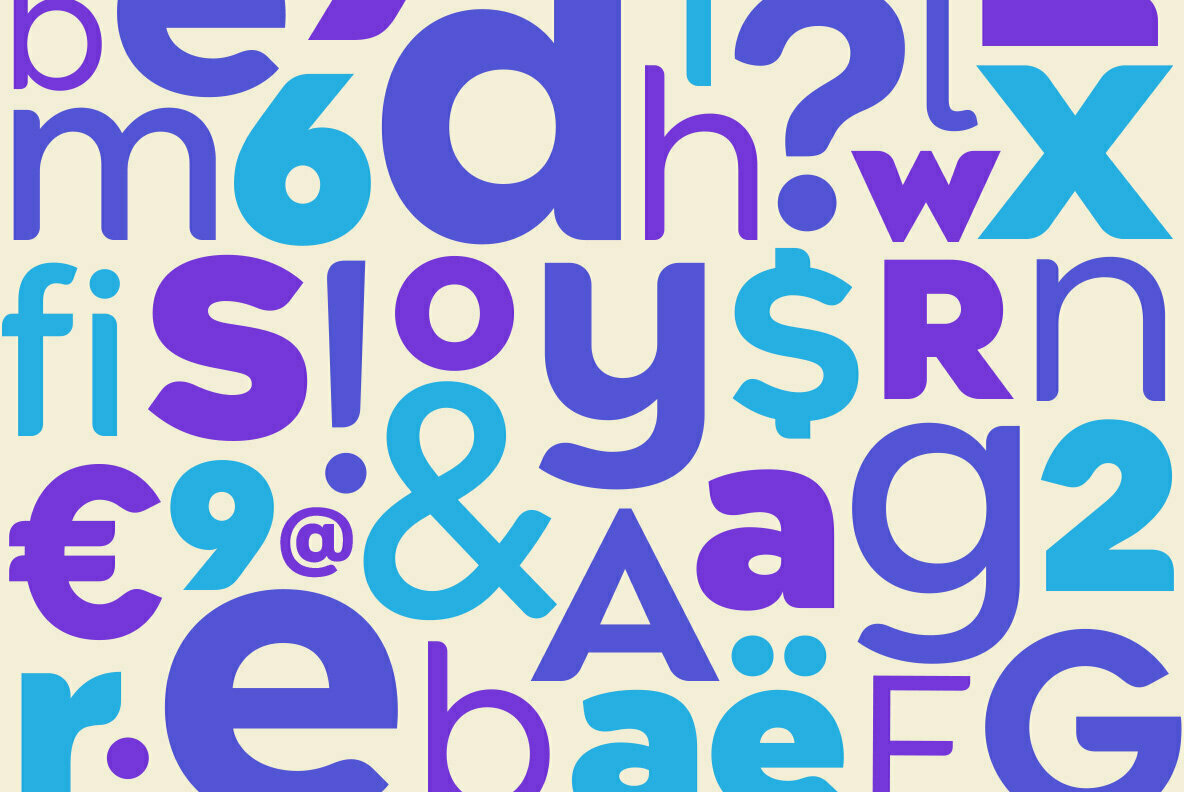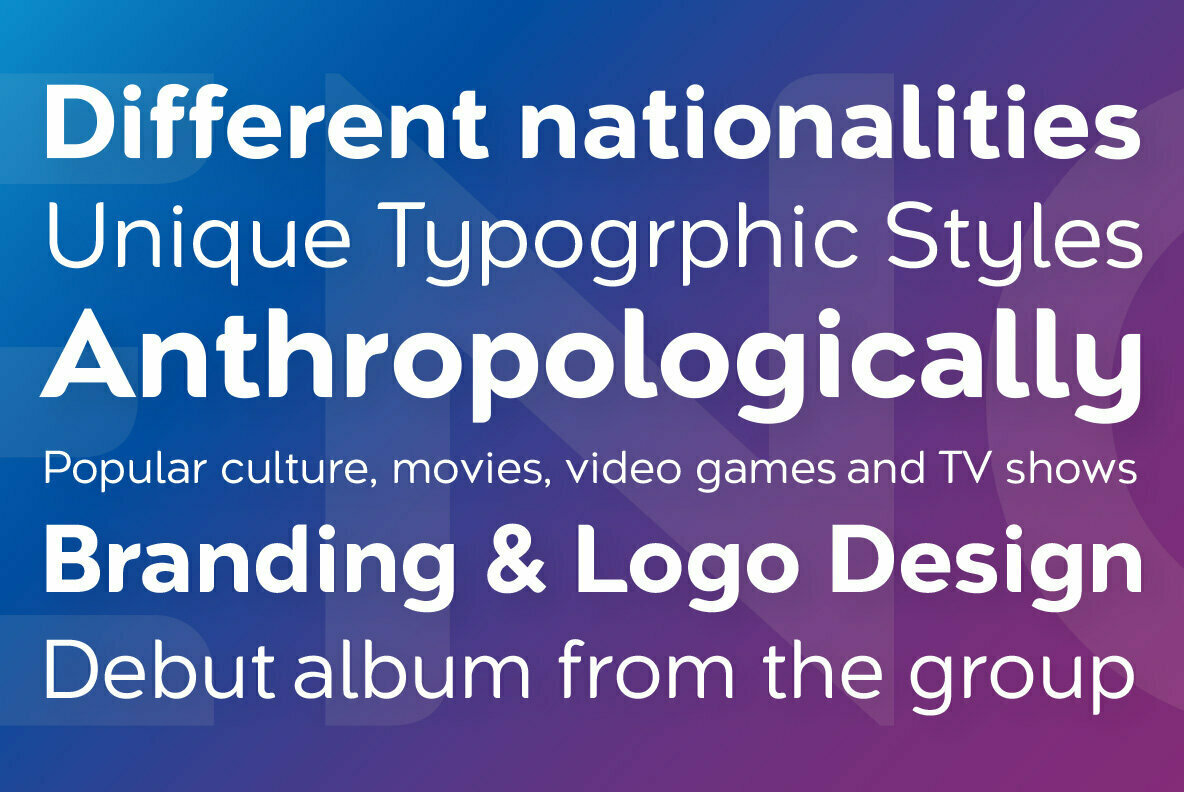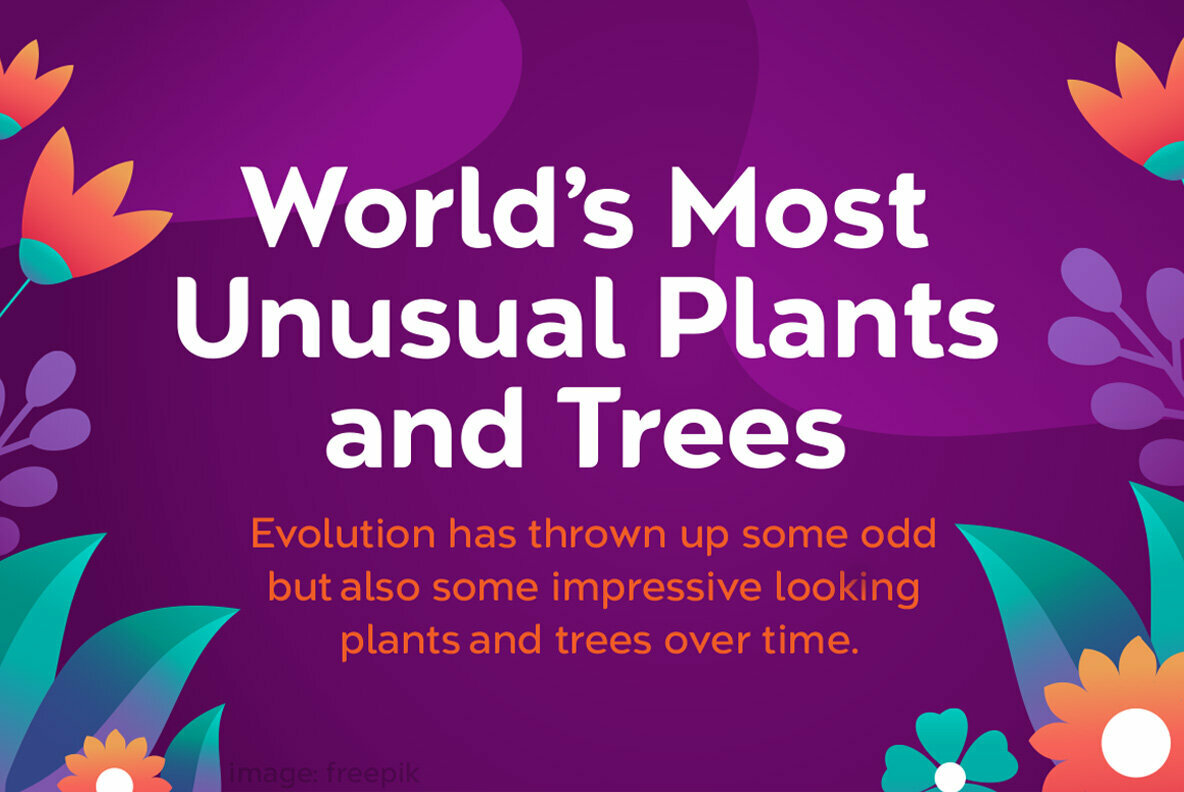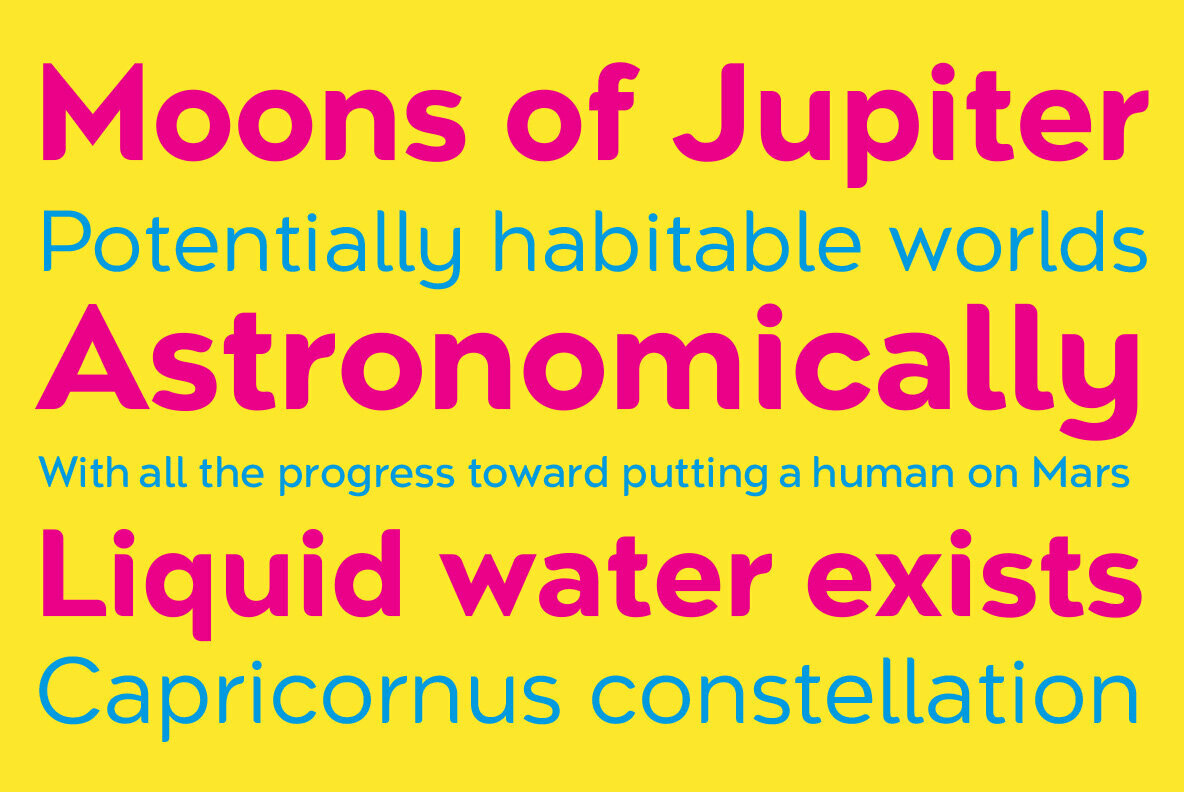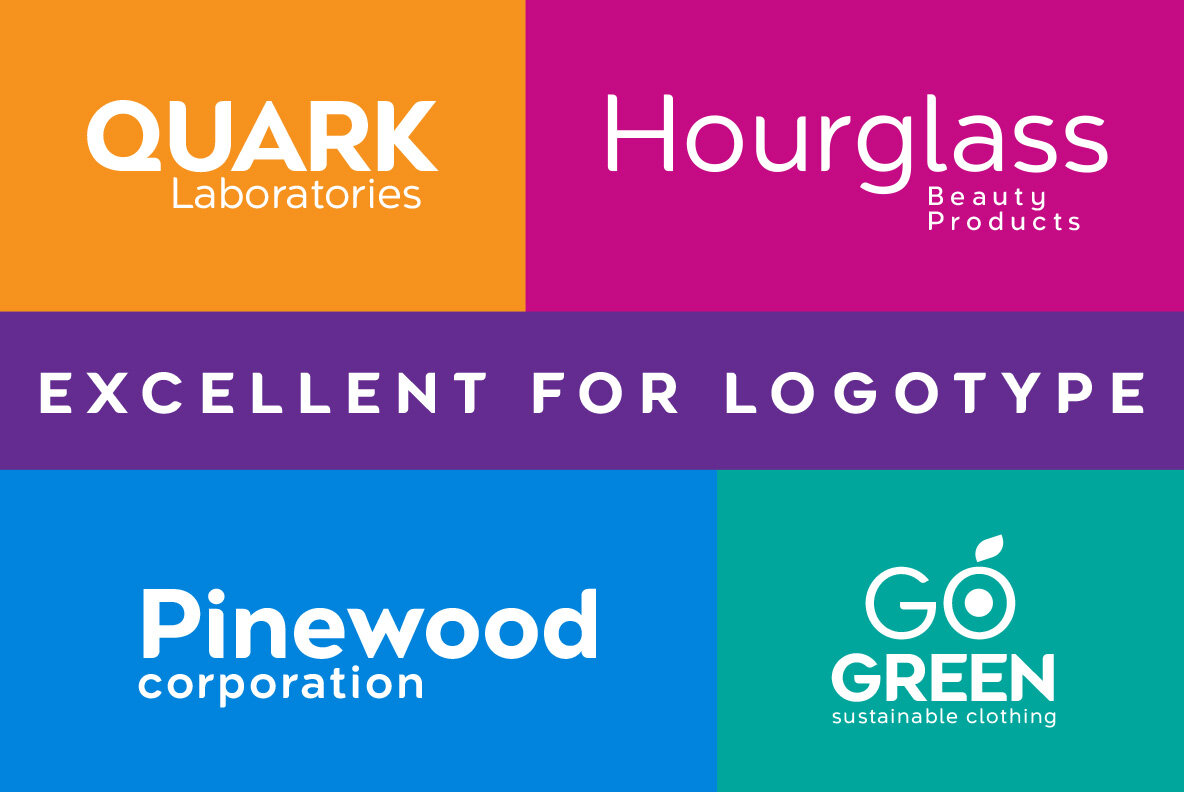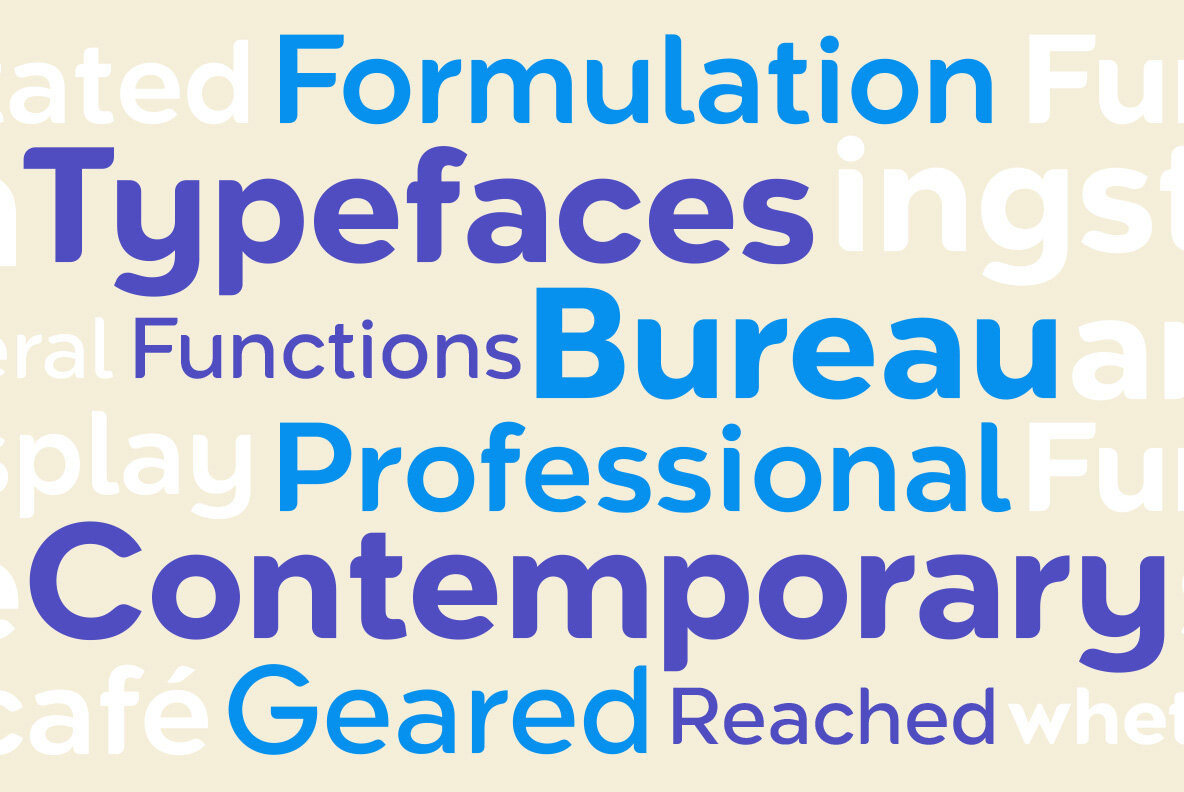
Agenor Neue Font
Agenor Neue is a geometric sans serif with a slight twist. The selective use of rounded edges gives it a unique and distinct character. Agenor Neue family comes in 7 weights and works great for logotype, headers, titles and any other display usage.